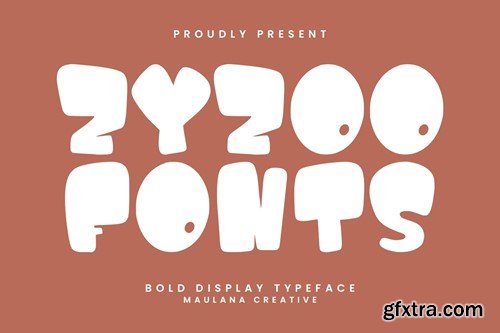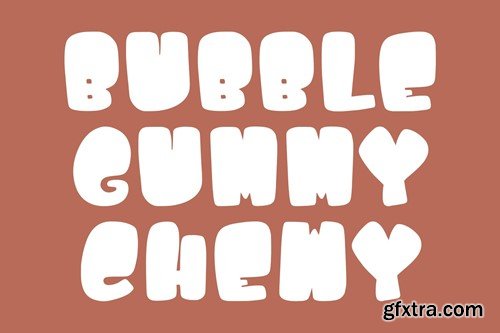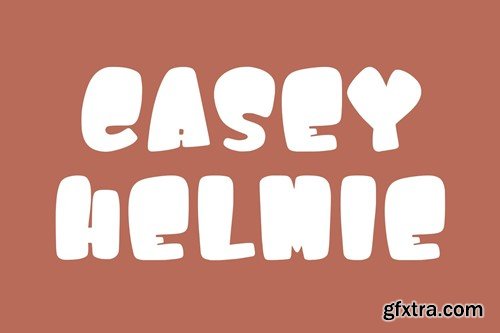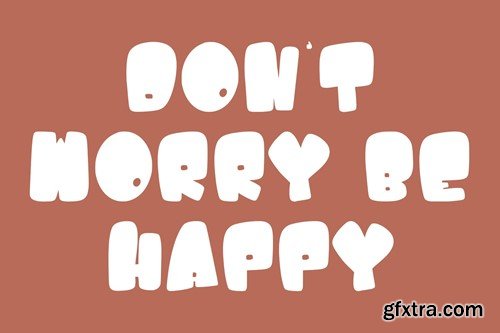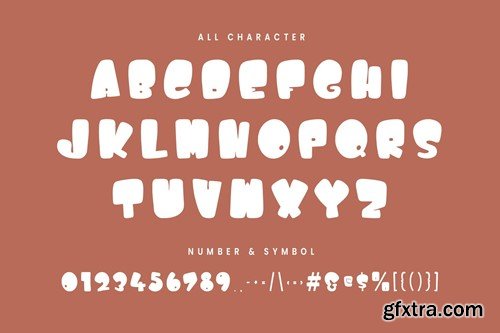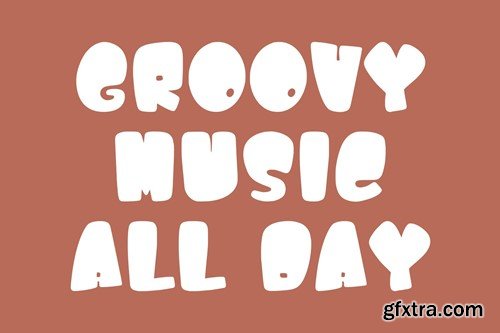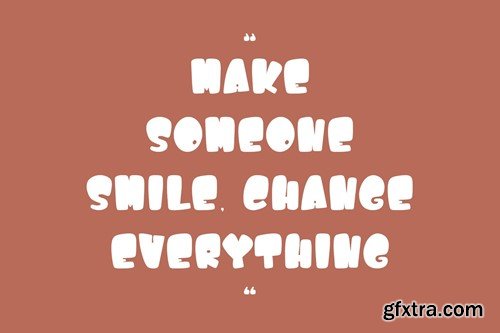
Zyzoo Bold Display Typeface
Zyzoo bold display typeface. With sharp bold stroke, fun character with a bit of ligatures and alternates. To give you an extra creative work. Zyzoo bold display typeface support multilingual more than 100+ language. This font is good for logo design, Social media, Movie Titles, Books Titles, a short text even a long text letter and good for your secondary text font with script or serif. Make a stunning work with Zyzoo bold display typeface. What you get: Cheers, Maulana Creative